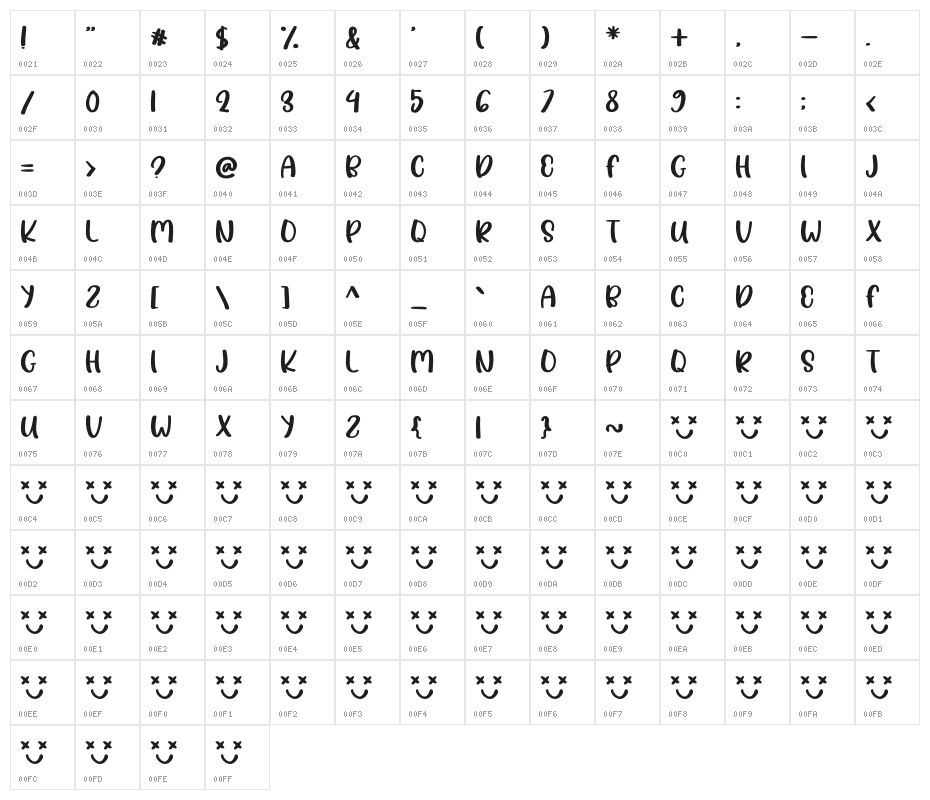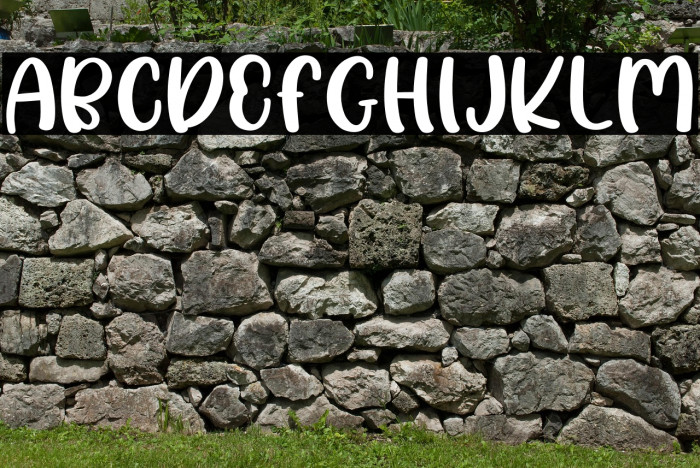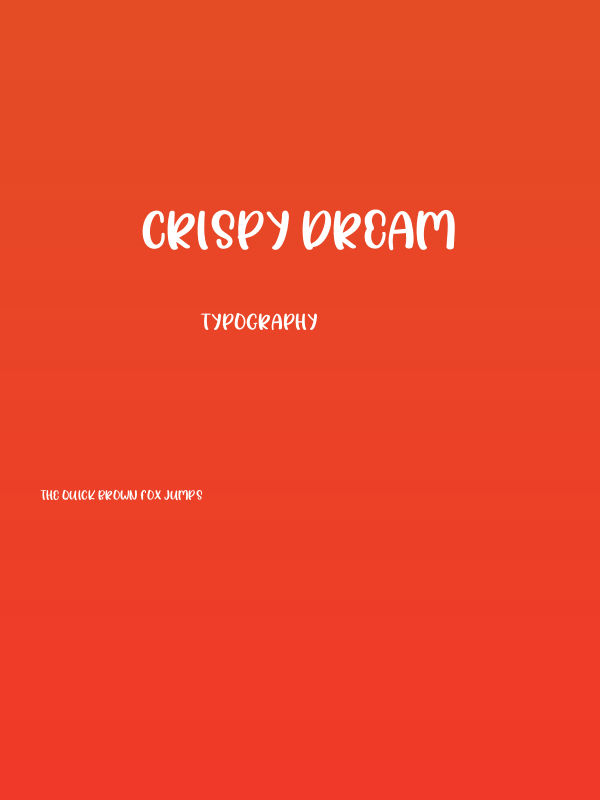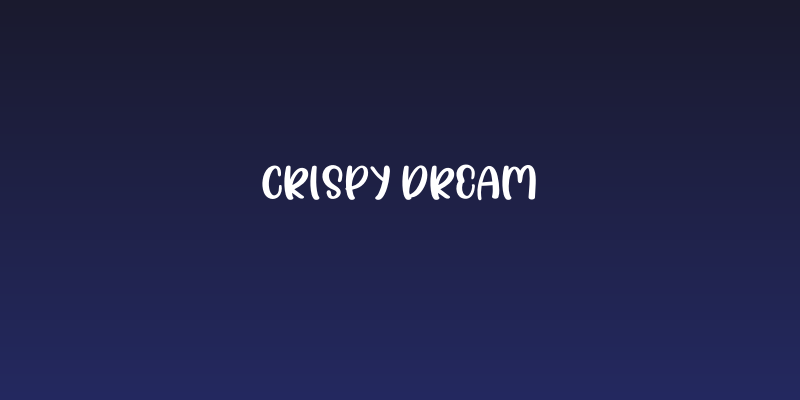
Crispy dream Font
Crispy dream Description
This playful and bold font features a handwritten style with smooth, rounded edges and a lively, energetic appearance. The characters are slightly slanted, adding a sense of motion and dynamism. Each letter is crafted with a consistent stroke width, giving it a uniform look while maintaining a casual and approachable feel. The font includes both uppercase and lowercase letters, numerals, and a variety of special characters, making it versatile for different design needs. Its bold presence makes it ideal for grabbing attention, while its friendly curves ensure readability.
| Proposed Projects | Perfect for children's books, playful branding, greeting cards, and social media graphics. |